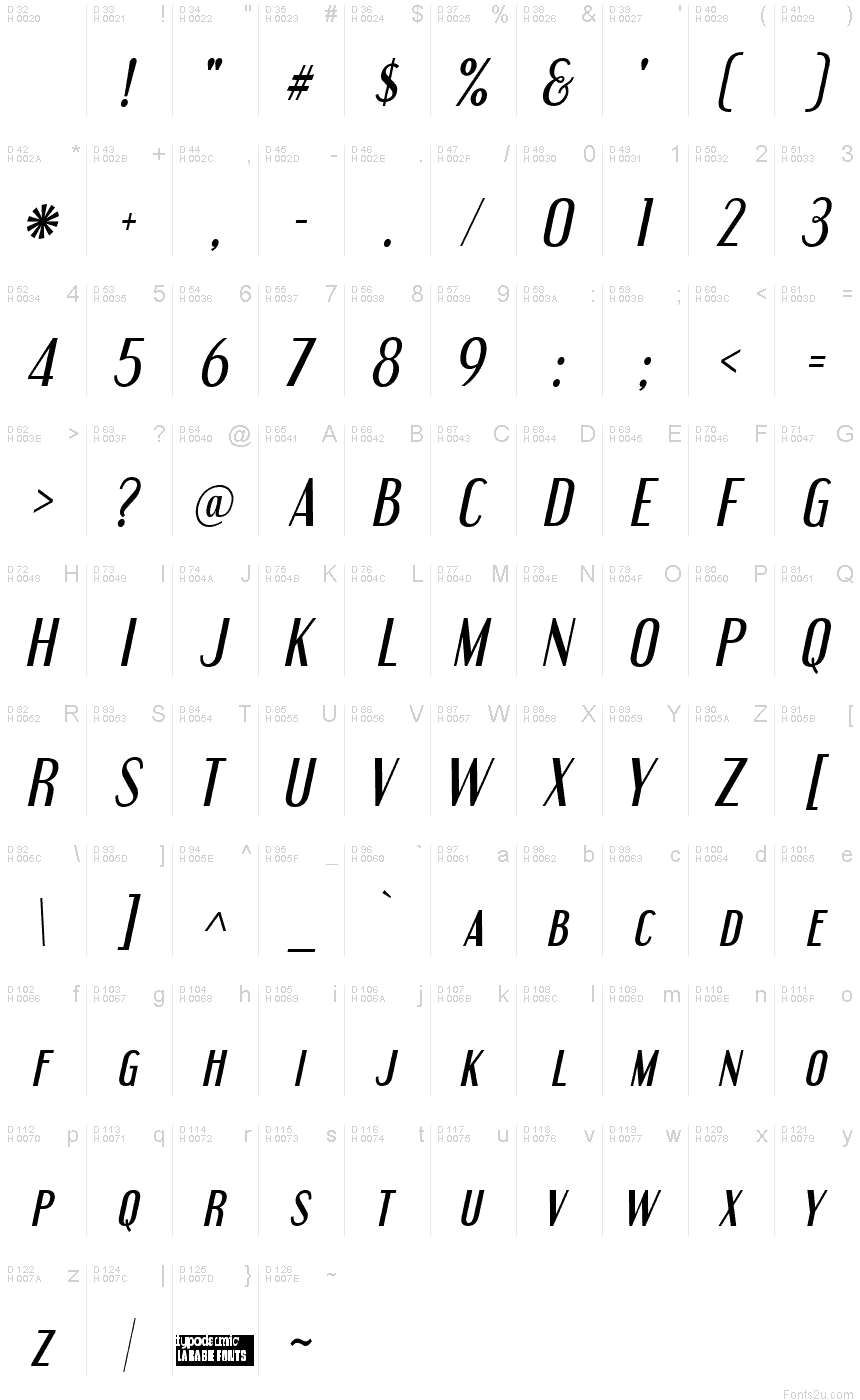
Engebrechtre Italic
Engebrechtre Italic font by Ray Larabie is a free condensed sans serif typeface with a dramatic forward lean that feels like it’s already in motion. Tall, blade-like strokes, tight spacing, and that aggressive italic slant give every word a sense of speed and urgency, as if it were stamped on the side of a race car or futuristic vehicle. The Engebrechtre family’s sleek geometry keeps it clean and readable, even when the letters are squeezed into narrow spaces.
Using Engebrechtre Italic, headlines snap to attention on posters, sports branding, sci‑fi book covers, esports logos, and high-energy social graphics. This free font thrives in big, bold settings where impact matters more than long reading. Try pairing Engebrechtre Italic with a neutral, wider sans for body copy, and keep Engebrechtre at larger sizes so its razor-sharp rhythm and velocity really hit the viewer.